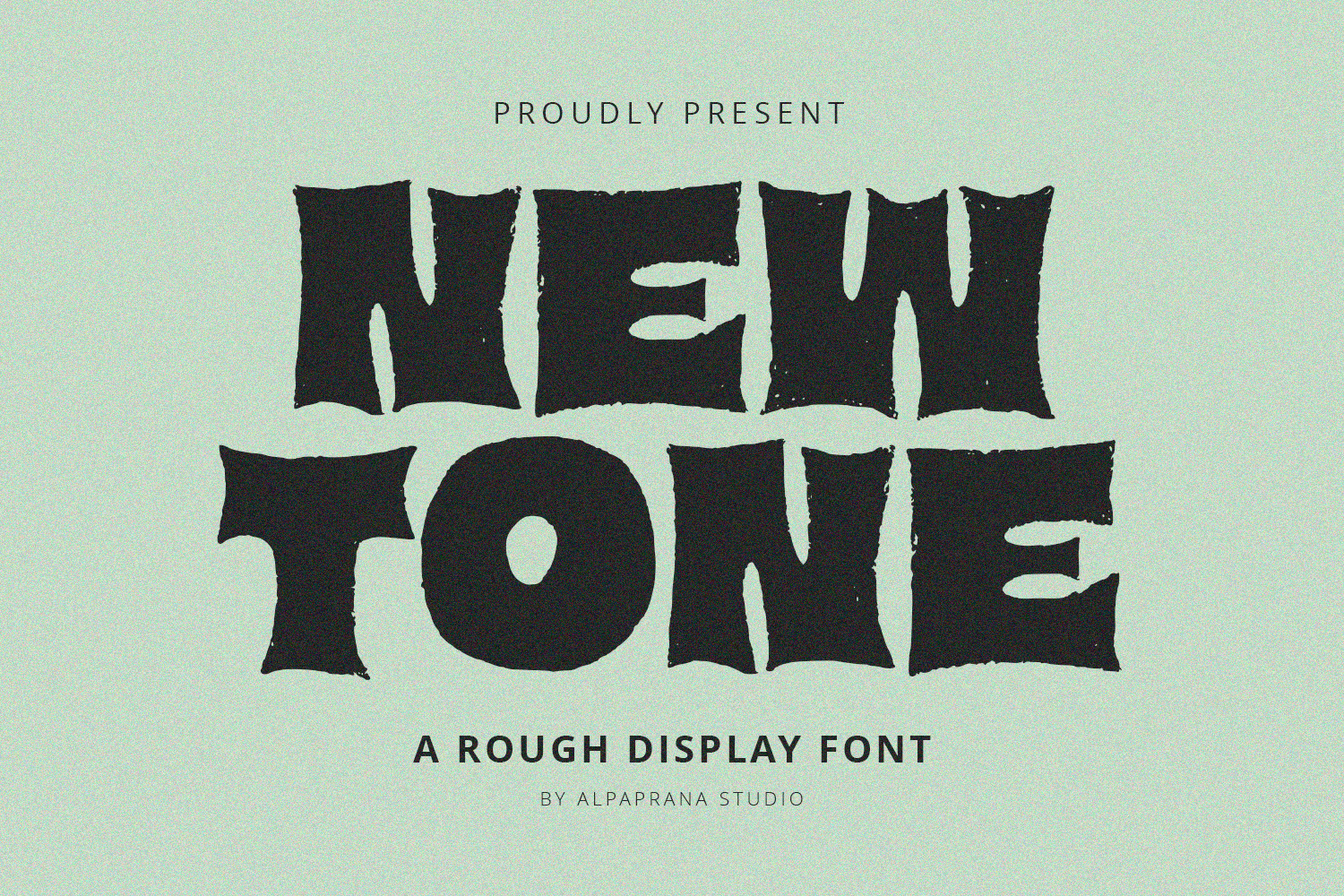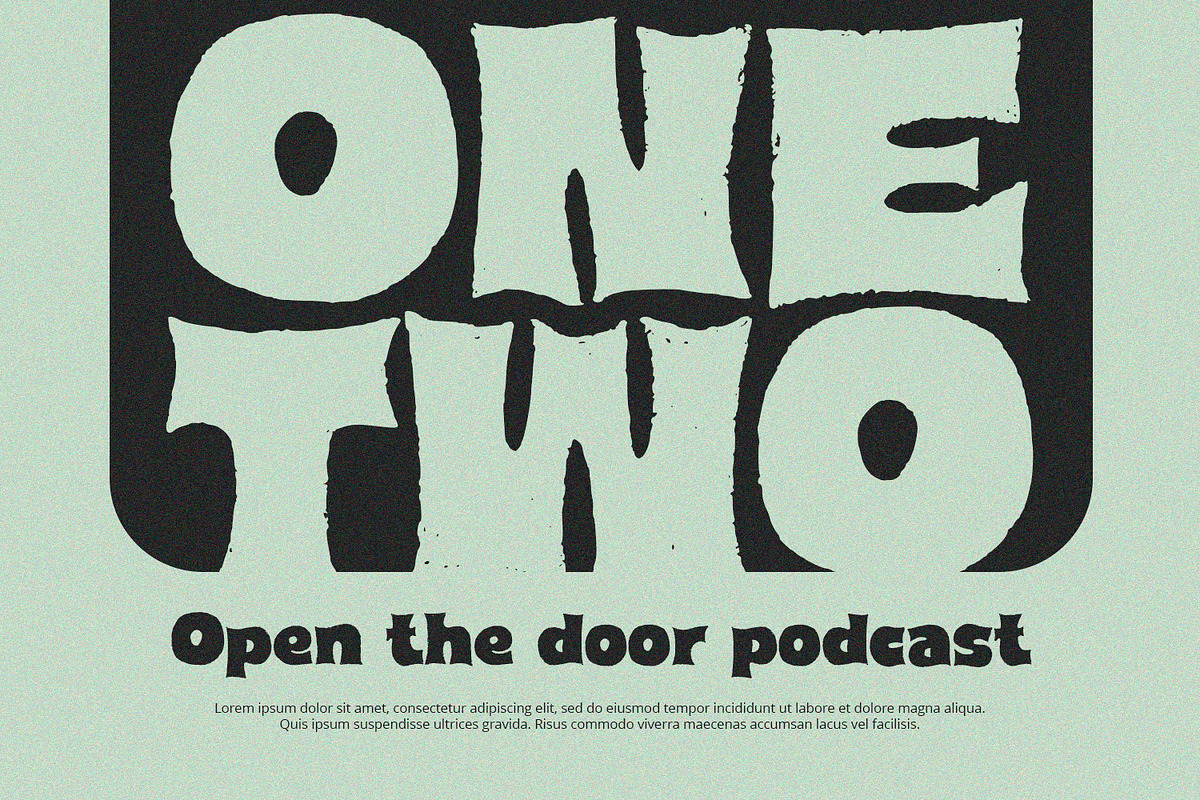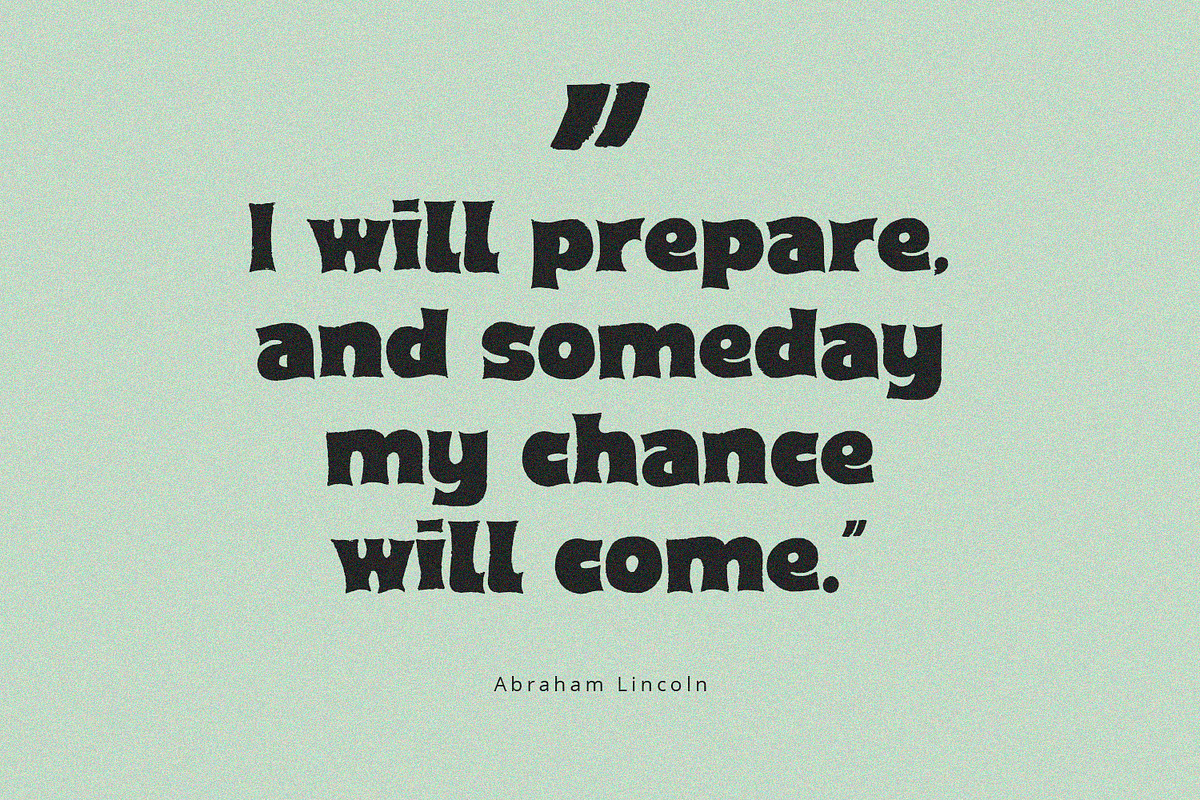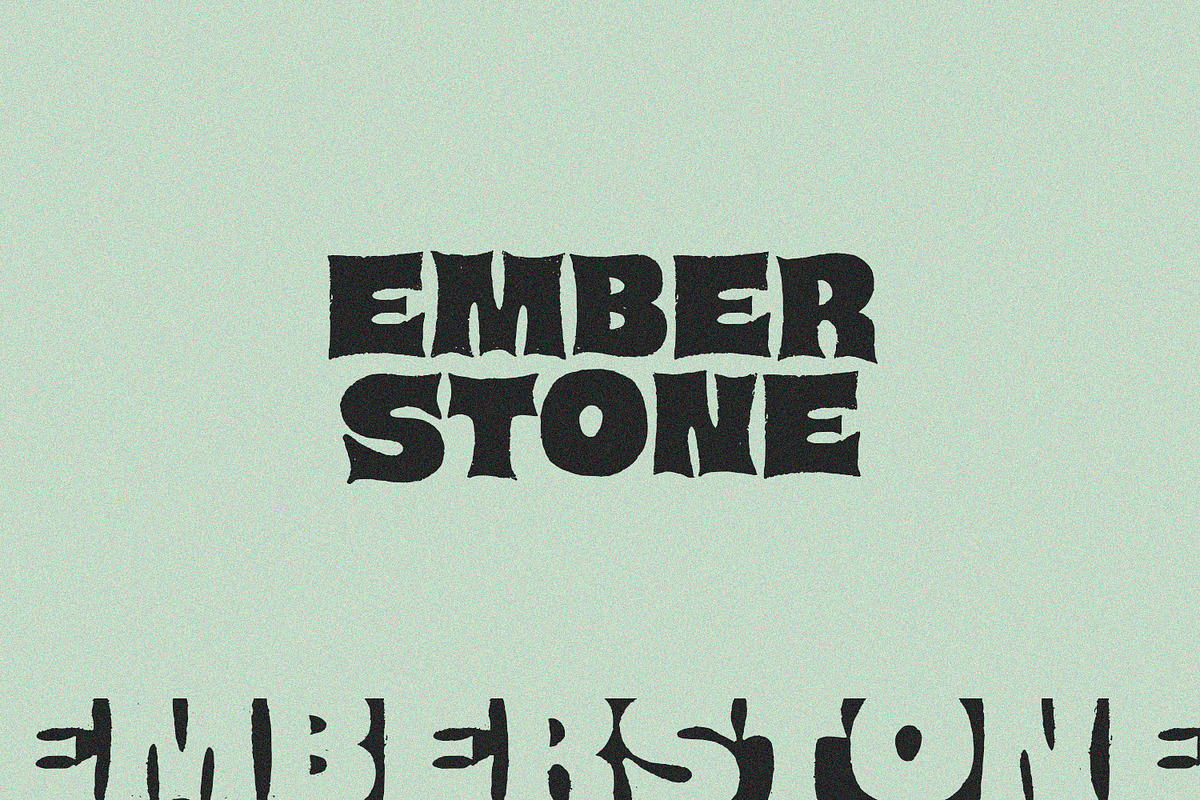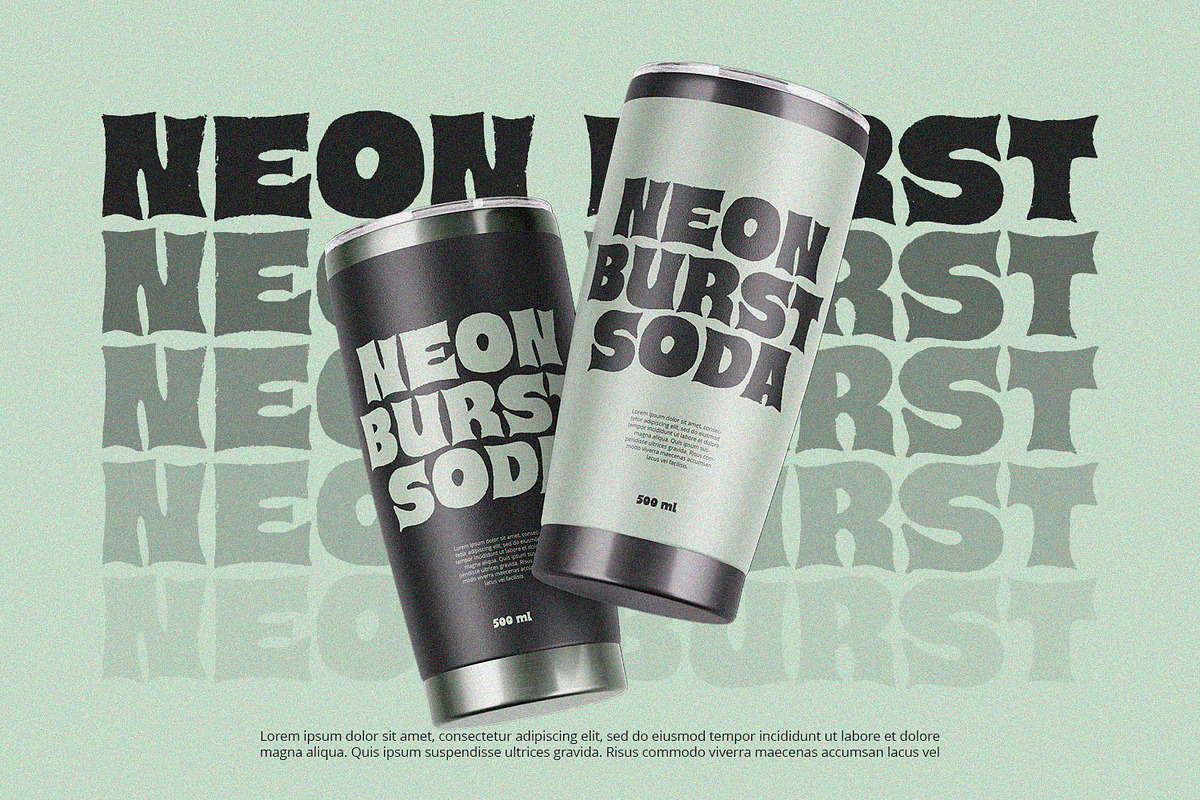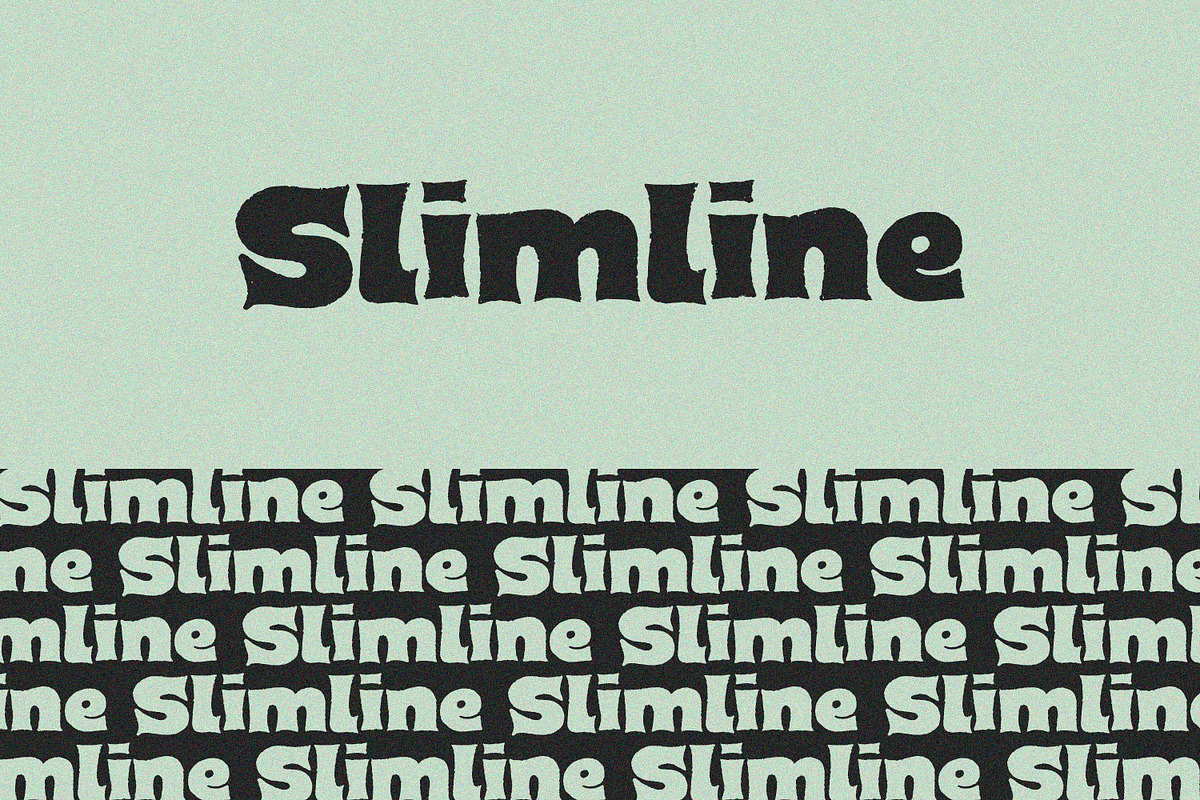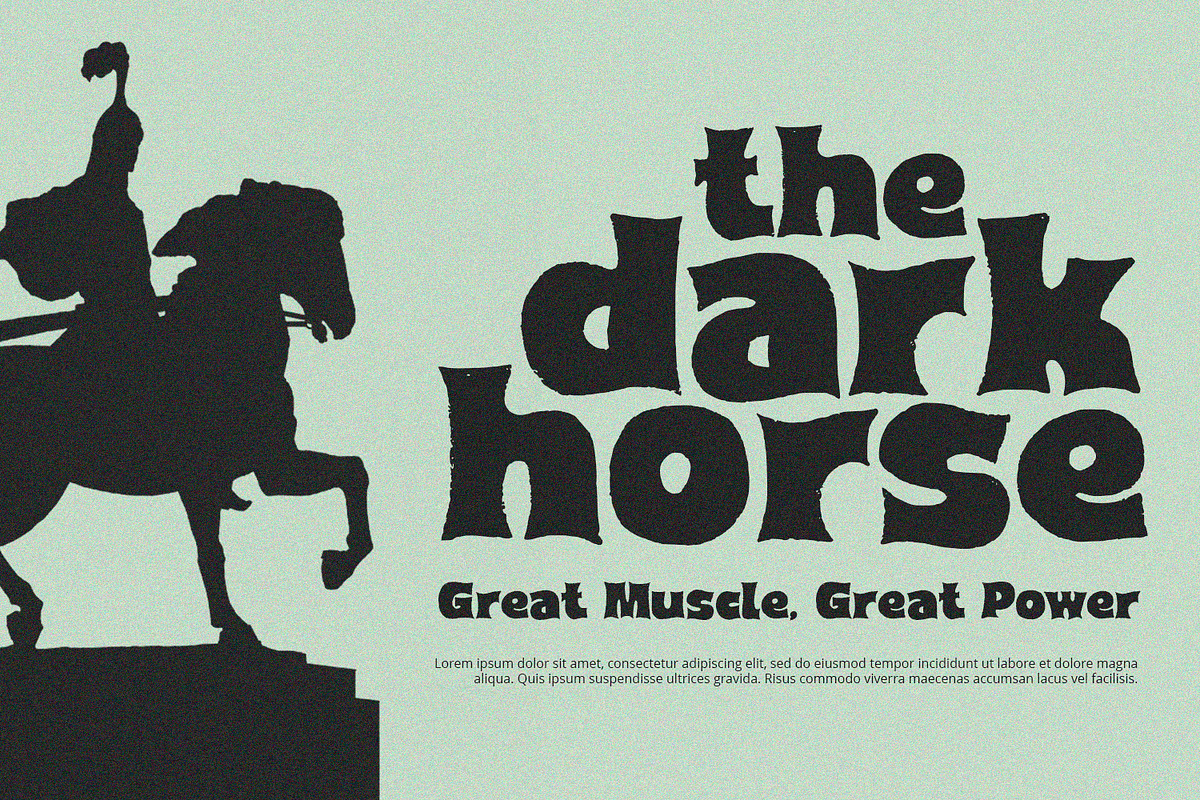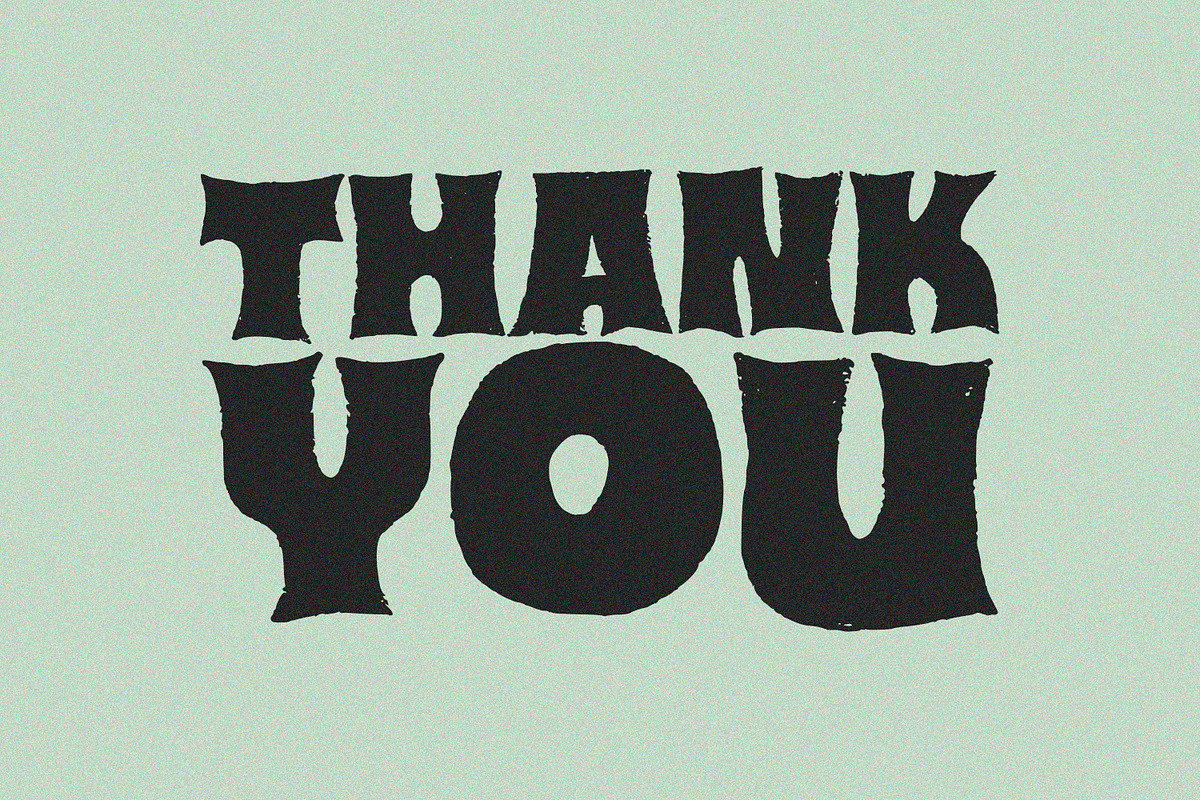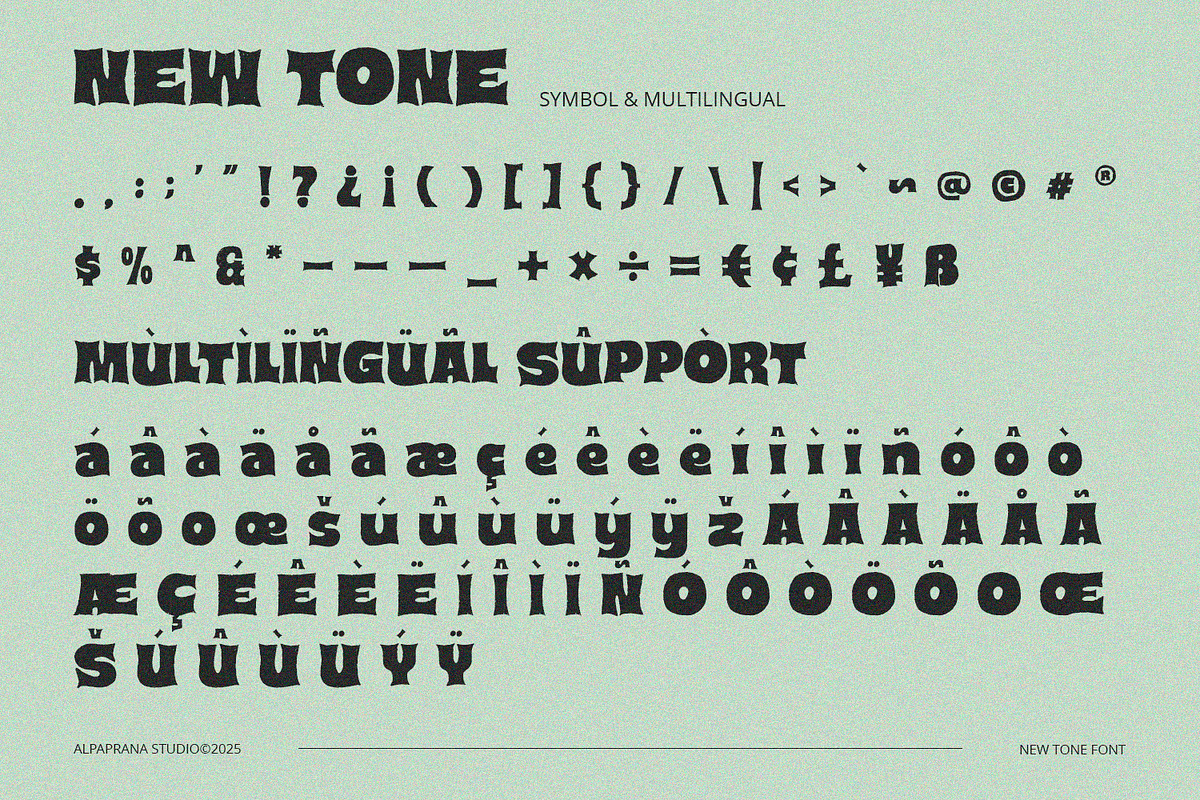
New Tone - Display Font
New Tone is rough display font with classic feels. It will be perfectly used for Branding, Logo Design, Lettering, Logotype, Clothing, Poster, magazine, packaging, posters, shopping bags, t-shirts, book covers, photography, special events and other design project.